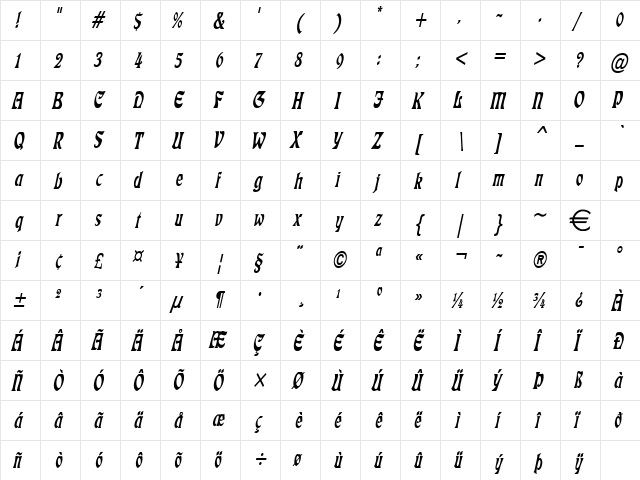
FreedomThin Italic Font Preview
FreedomThin Italic
Design Context for FreedomThin Typeface
FreedomThin takes a measured approach to typography — its balanced proportions and neutral character make it a reliable workhorse for both digital and print work. The dynamic lean of this cut emphasises speed and emphasis in any layout. The delicate stroke weight brings airiness and refinement to layouts.